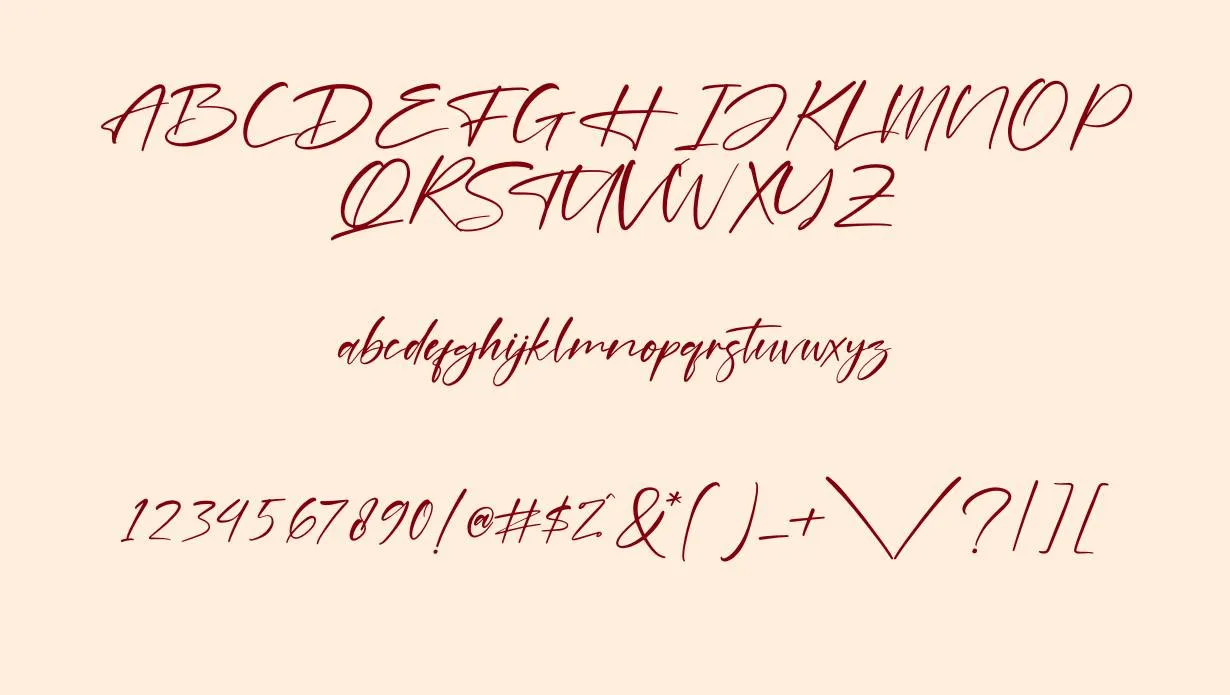
The Delight font emanates a playful and cheerful aura, often embraced in joyful or festive designs, invitations, or creative projects. Its whimsical charm and informal strokes add a playful character to logos or headings, especially when used in design software like Illustrator or Canva.
| Name | Delight Font |
| Designer | Alejandro Paul |